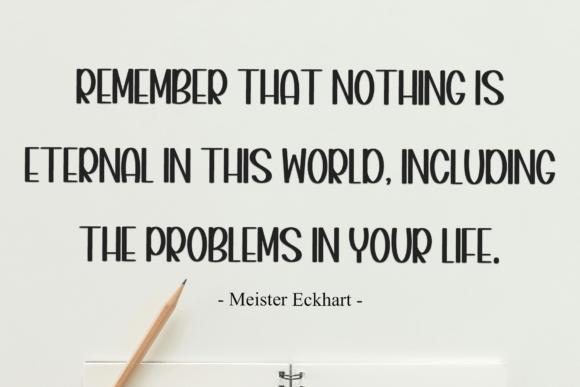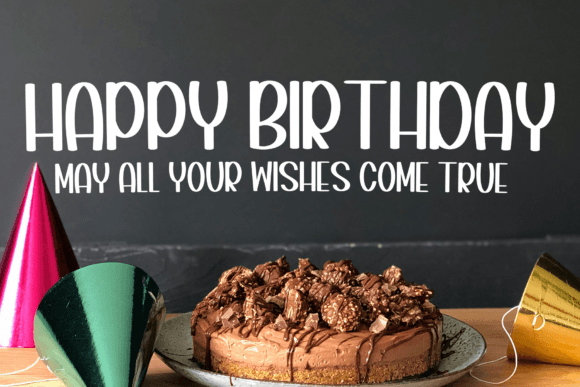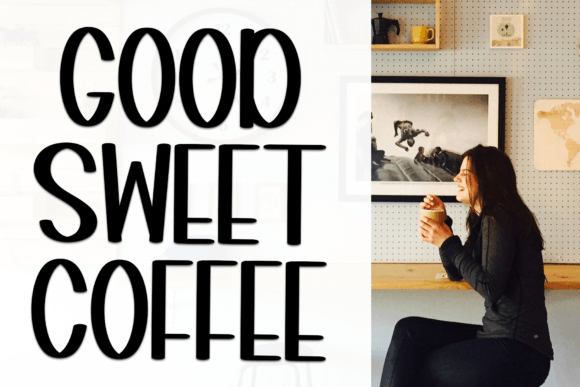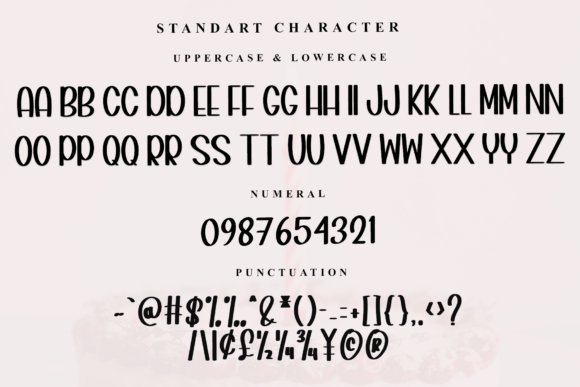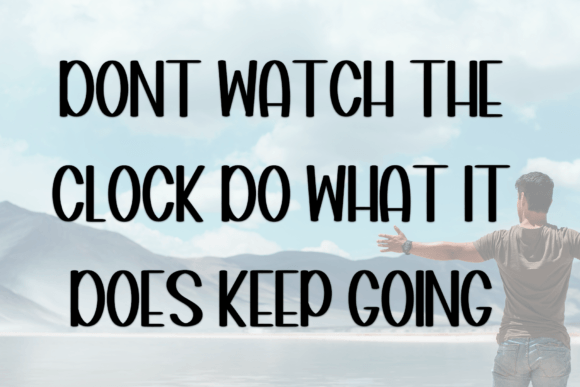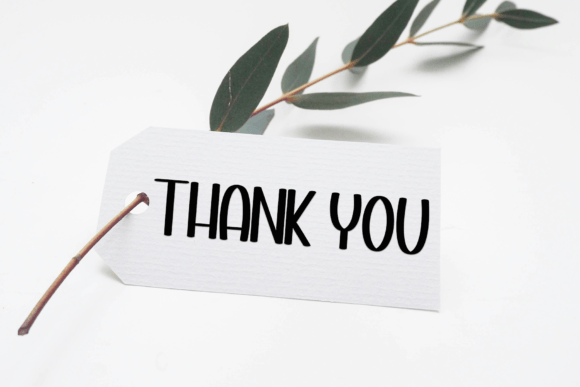
Introducing December Notebook Font: Elevate Your Designs with Elegance
Are you on the hunt for a font that exudes sophistication, elegance, and a touch of modern flair? Look no further than the December Notebook Font. This beautiful, refined handwritten font is making waves in the design community, and for good reason. Its classy appearance makes it an ideal choice for a wide range of projects, from logos and branding to invitations, stationery, wedding designs, and social media posts.
What Makes December Notebook Font Stand Out?
The December Notebook Font boasts a unique blend of traditional elegance and modern simplicity. Its handwritten style is smooth, fluid, and effortlessly chic, making it perfect for designers and crafters looking to add a personal touch to their work. Whether you’re creating a logo, crafting a wedding invitation, or designing a social media post, this font is sure to elevate your project with its refined aesthetic.
One of the key benefits of the December Notebook Font is its incredible versatility. This font isn’t just limited to one or two specific uses; rather, it can be applied to a vast array of projects, including:
• Logos and branding: Create a lasting impression with a logo that embodies elegance and sophistication.
• Invitations and stationery: Add a touch of class to your invitations, greeting cards, and stationery.
• Wedding designs: Make your wedding materials, such as invitations, programs, and place cards, truly unforgettable.
• Social media posts: Elevate your social media presence with beautifully designed posts that capture your audience’s attention.
Another significant advantage of the December Notebook Font is that it is PUA (Private Use Area) encoded. This means that accessing the font’s extensive range of glyphs and ligatures is incredibly straightforward. With PUA encoding, you can easily access and use the font’s additional features, allowing you to add even more creativity and uniqueness to your designs.
Why Designers and Crafters Love December Notebook Font
Designers and crafters alike are drawn to the December Notebook Font for several reasons:
• Ease of use: The font’s PUA encoding makes it easy to access and use a wide range of glyphs and ligatures.
• High-quality design: The font’s refined, elegant appearance ensures that your projects will look professional and polished.
• Versatility: The font’s versatility means you can use it for a wide range of projects, saving you time and effort in the long run.
• Unique aesthetic: The font’s unique blend of traditional and modern elements helps your projects stand out from the crowd.
The December Notebook Font is a game-changer for designers and crafters looking to elevate their projects with a touch of elegance and sophistication. Its versatile design, PUA encoding, and high-quality aesthetic make it an excellent choice for a wide range of applications. Whether you’re a seasoned designer or just starting out, this font is sure to become a staple in your collection.